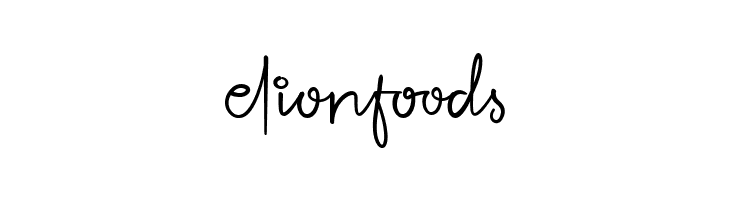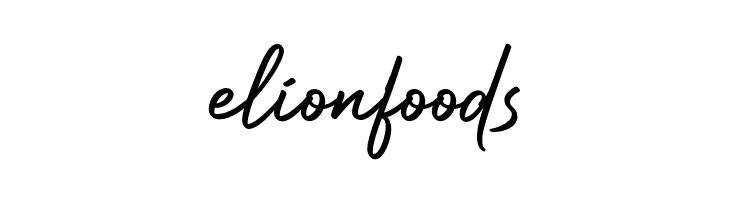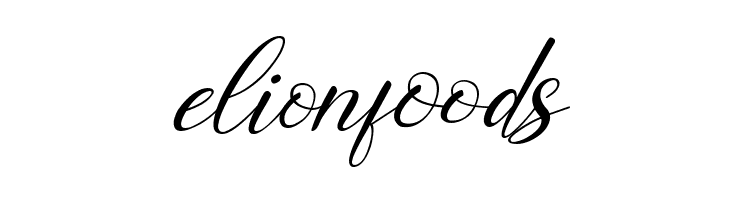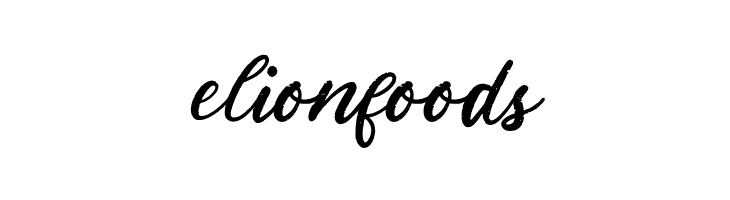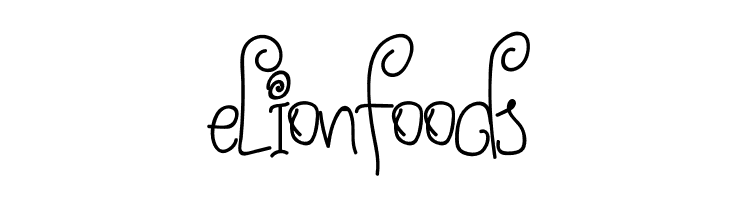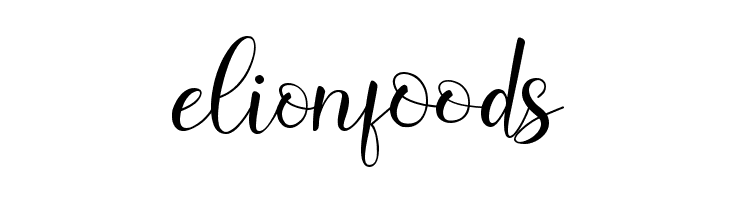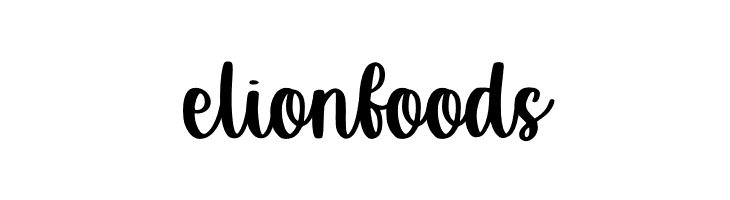
A dynamic and elegant script font with fluid strokes and a handwritten charm.
An elegant script font with flowing, cursive style and intricate flourishes.
An elegant, flowing script font with graceful curves and sophisticated style.
A playful and energetic script font with bold, flowing letterforms.
A sophisticated, cursive script font with elegant, flowing strokes.
A bold, cursive script font with a textured, handcrafted feel.
A playful, bold script font with a handwritten, flowing style.
A playful, elegant script font with a handwritten feel and medium contrast.